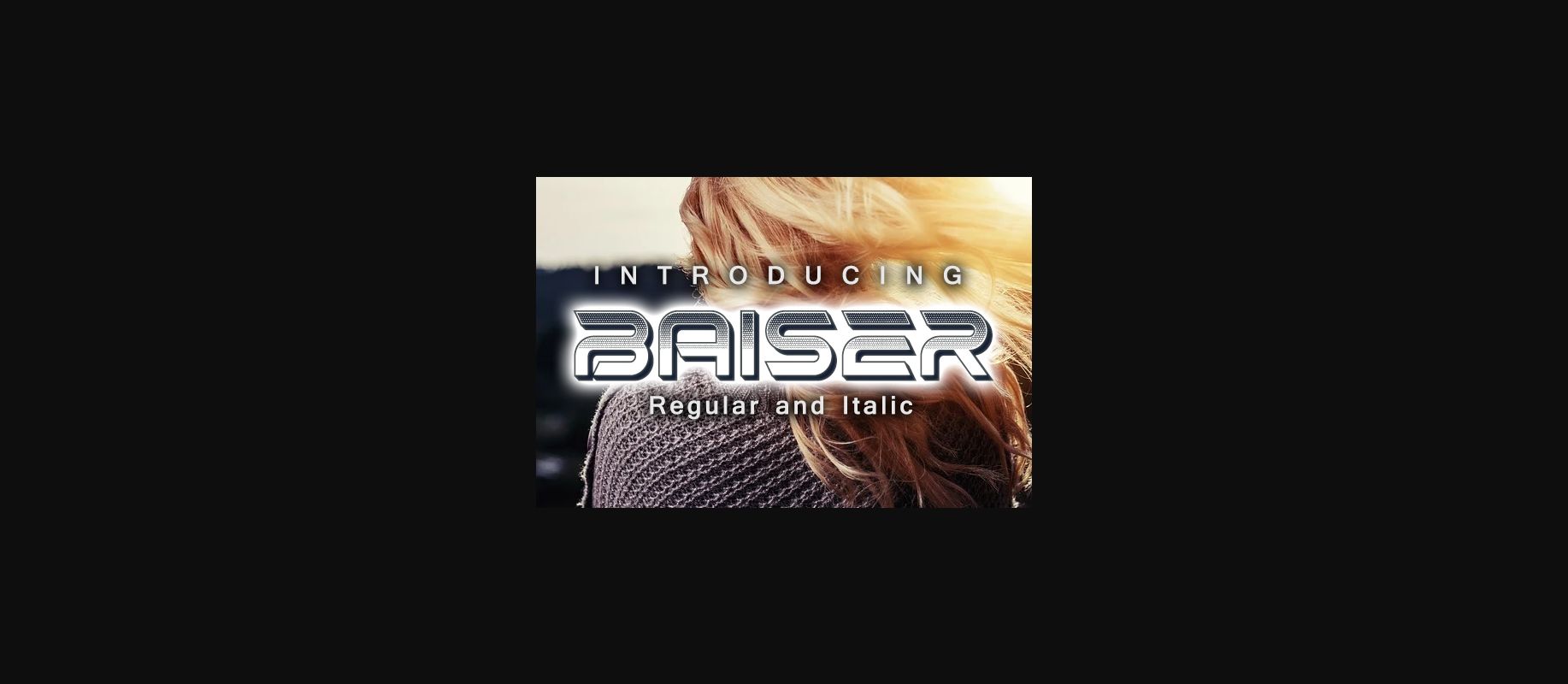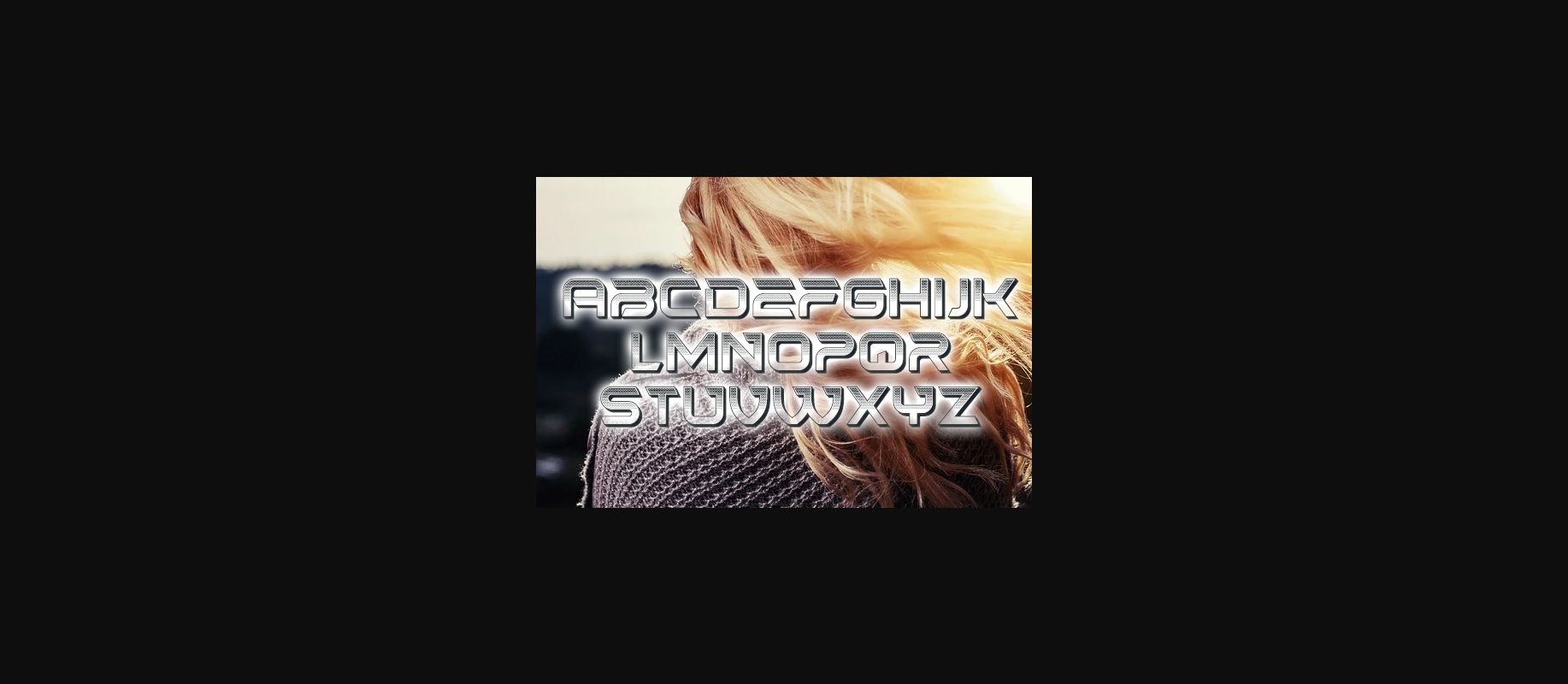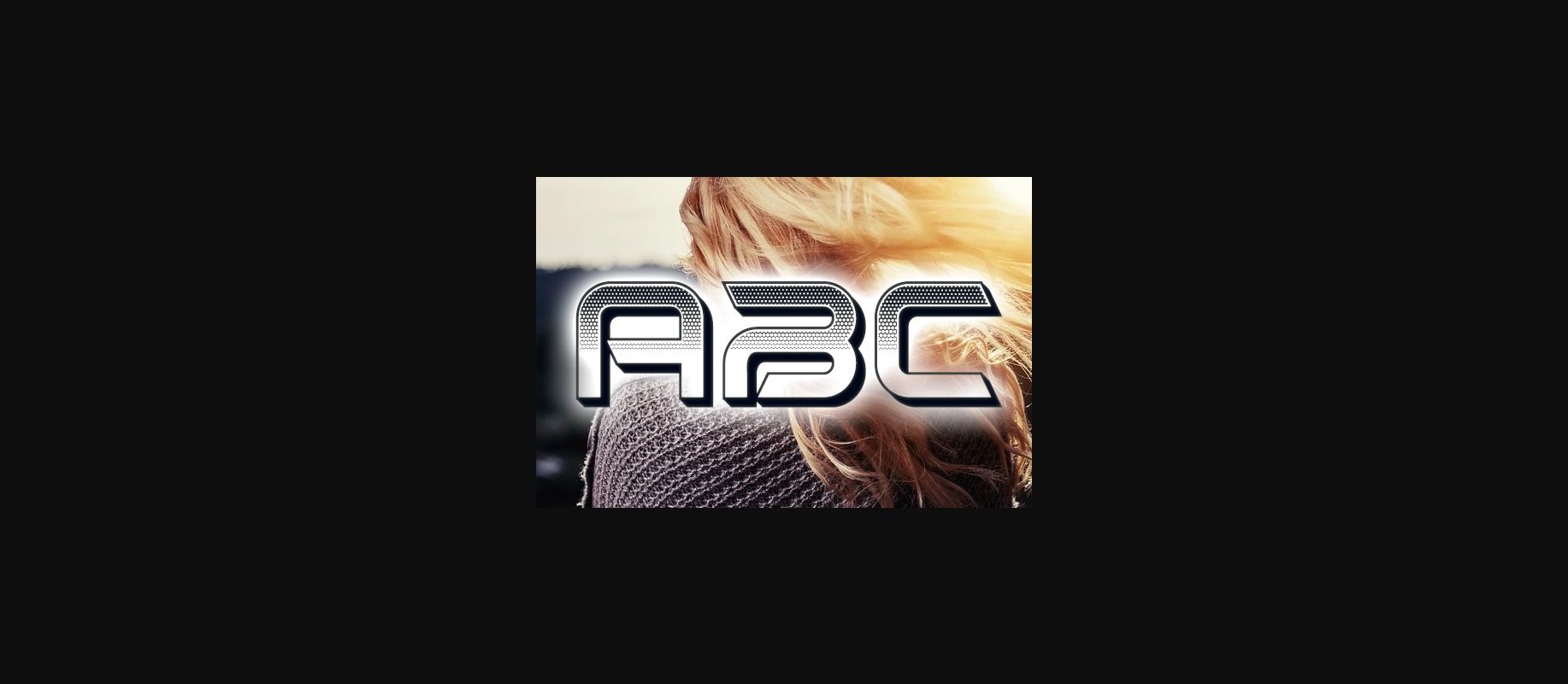
About Baiser Font
Baiser is an awesome hi-tech decorative font that comes in regular and italic versions. It will look stunning on posters, banners, or prints.